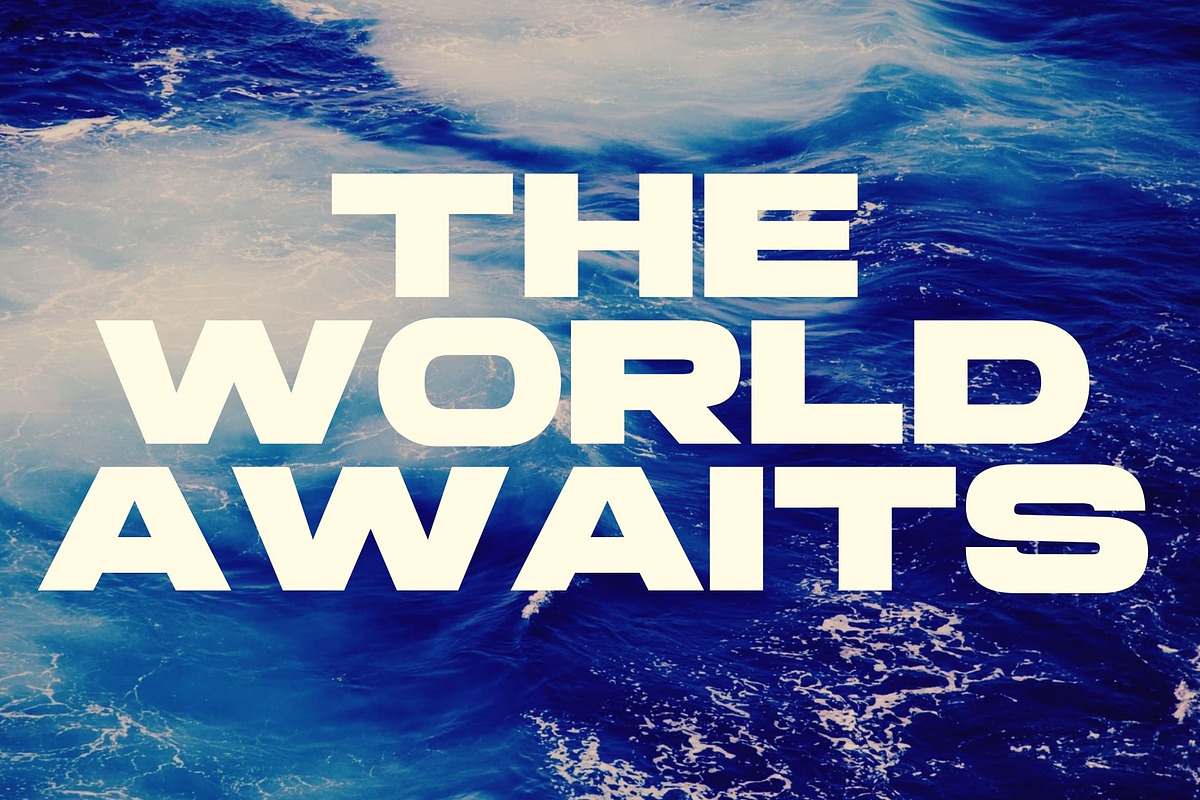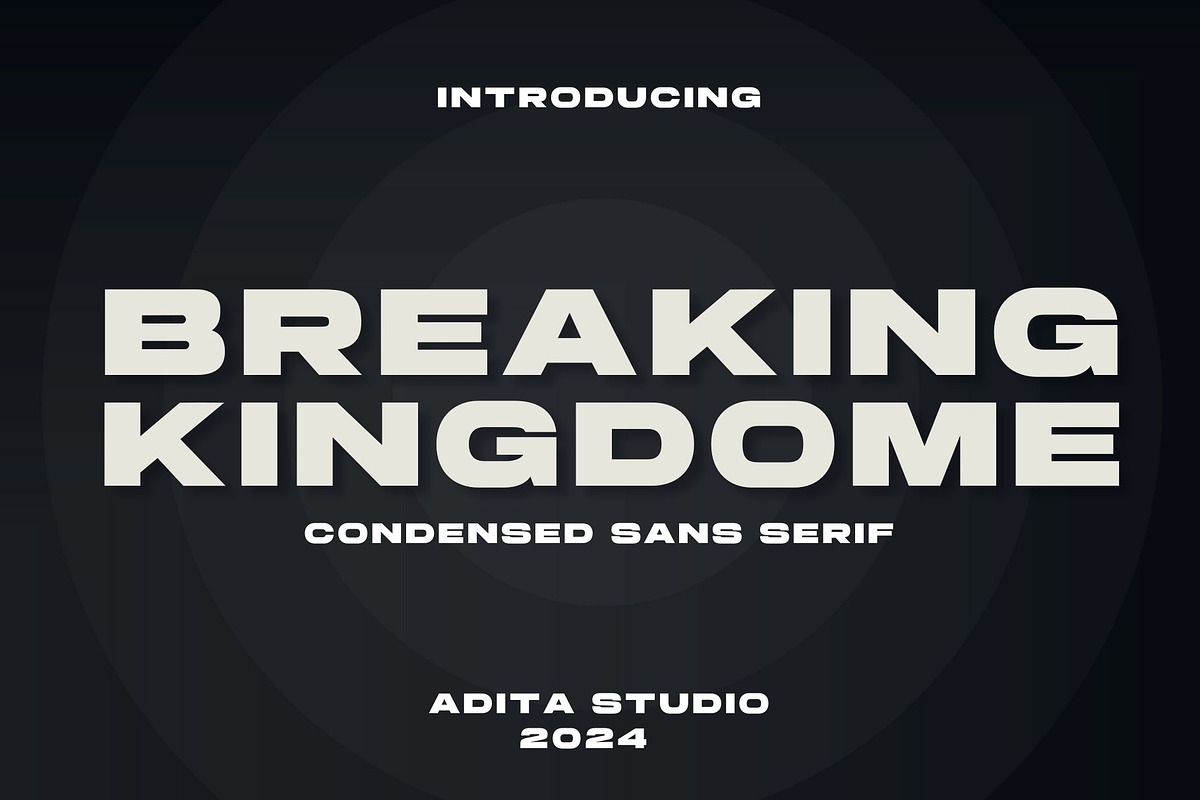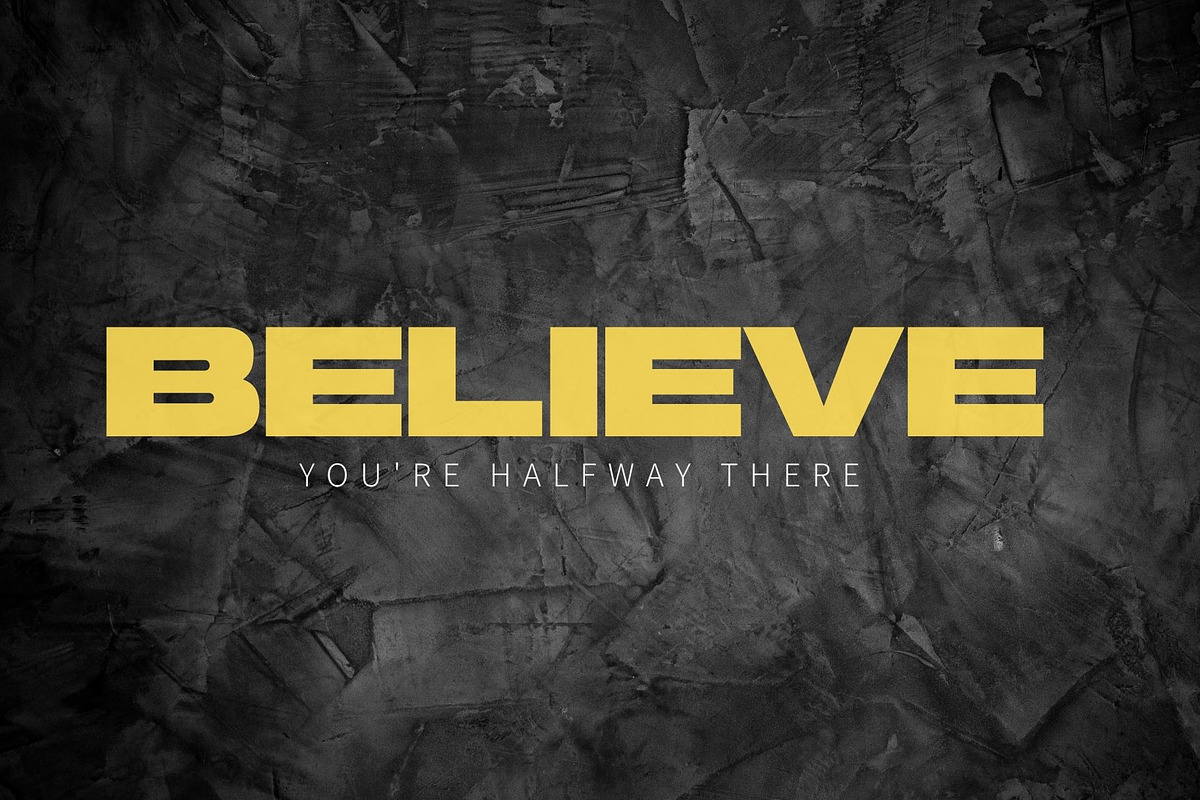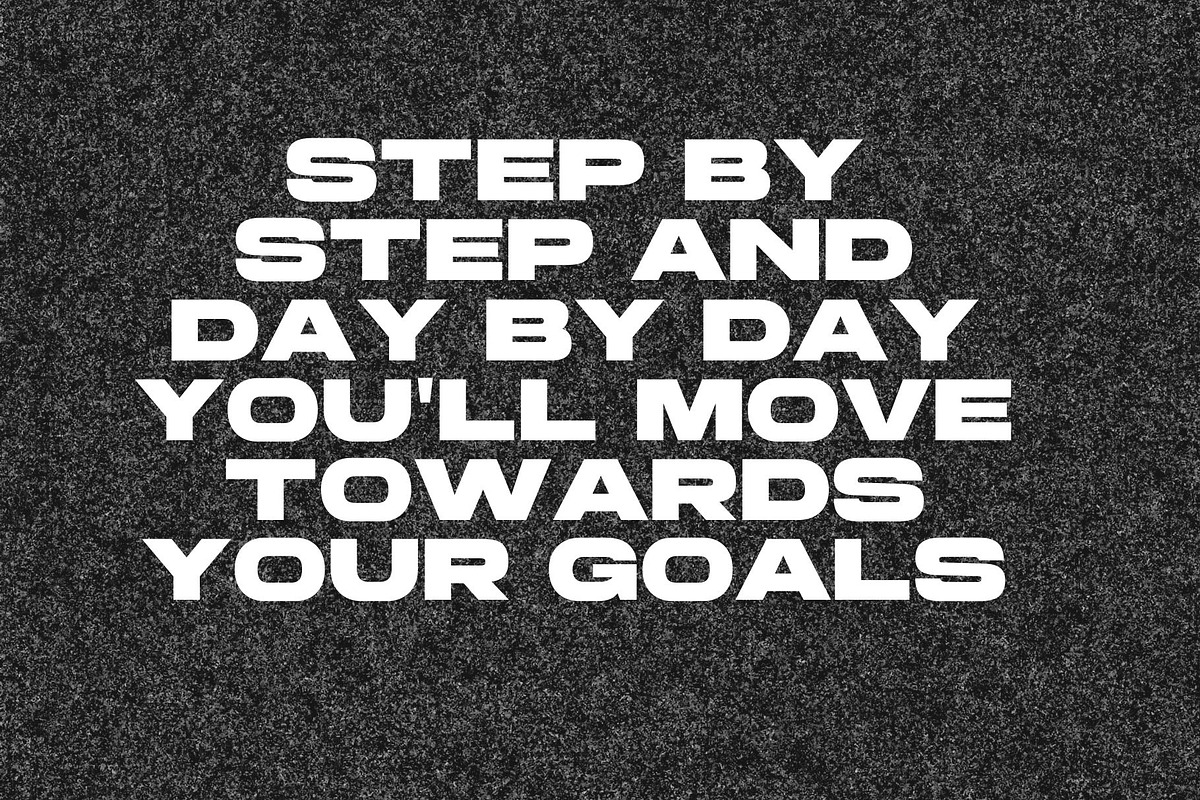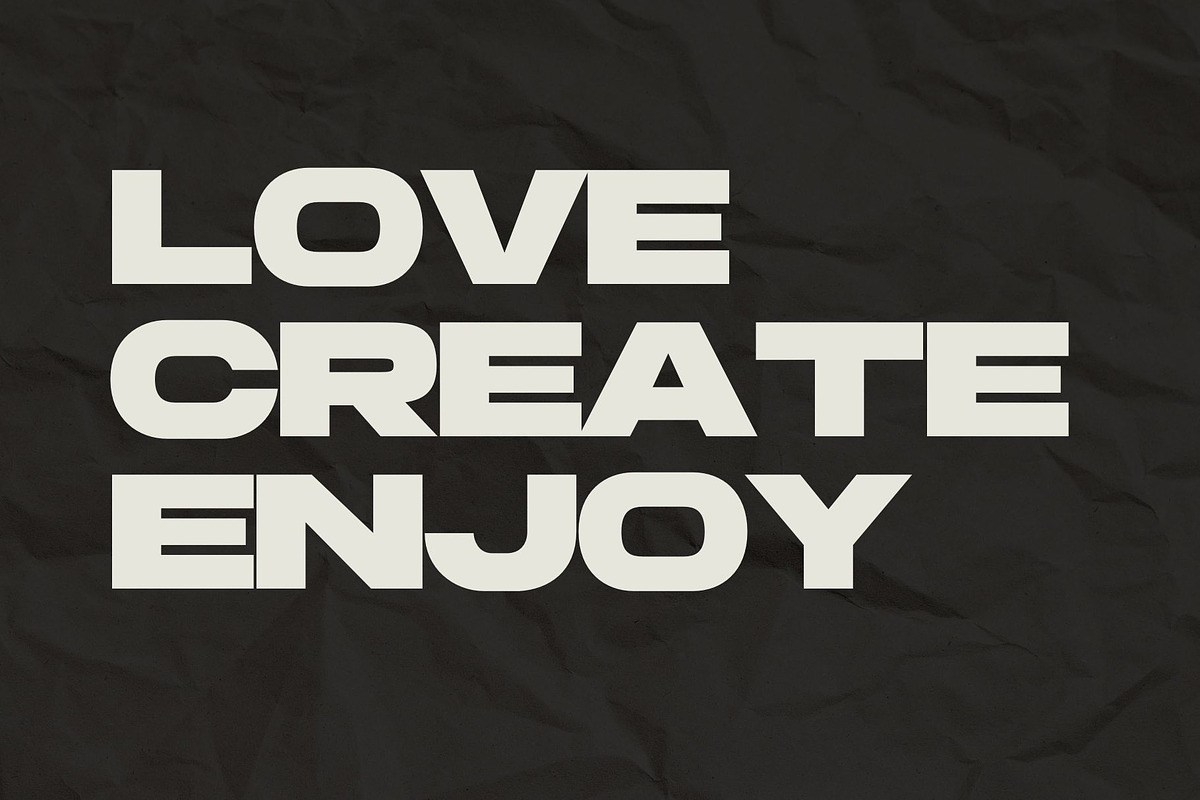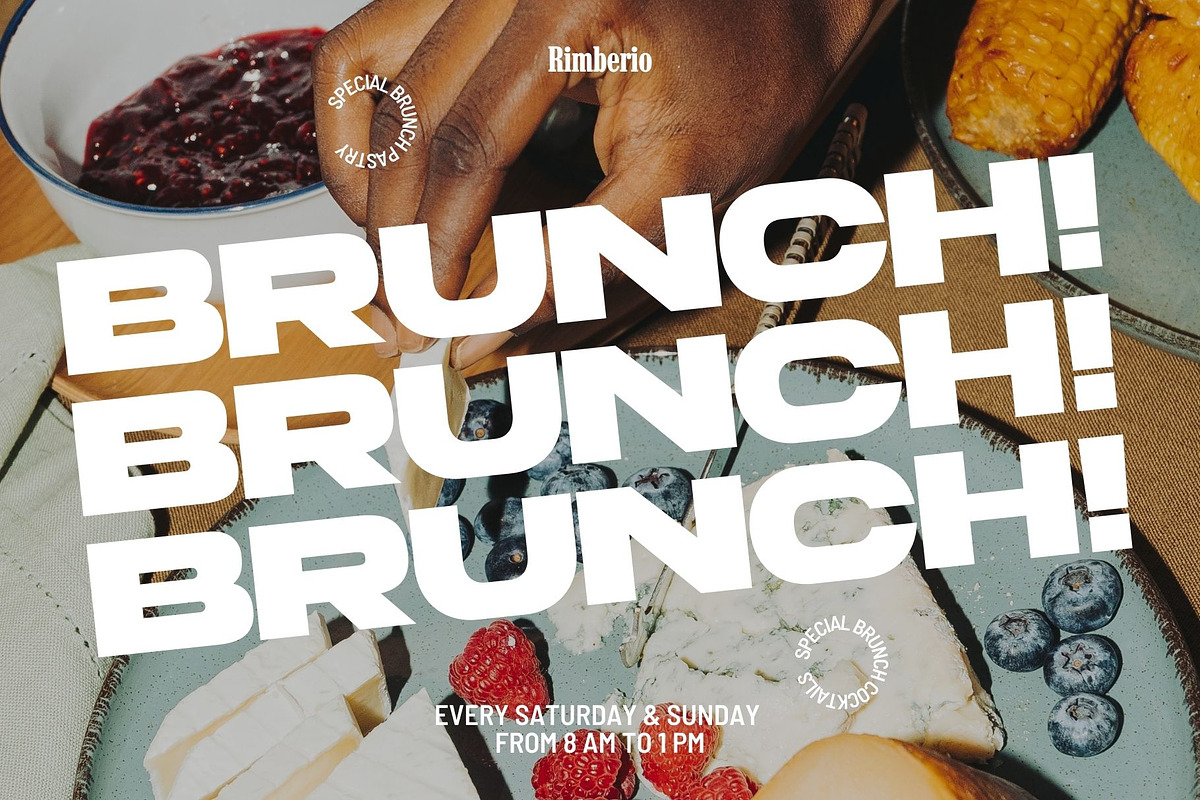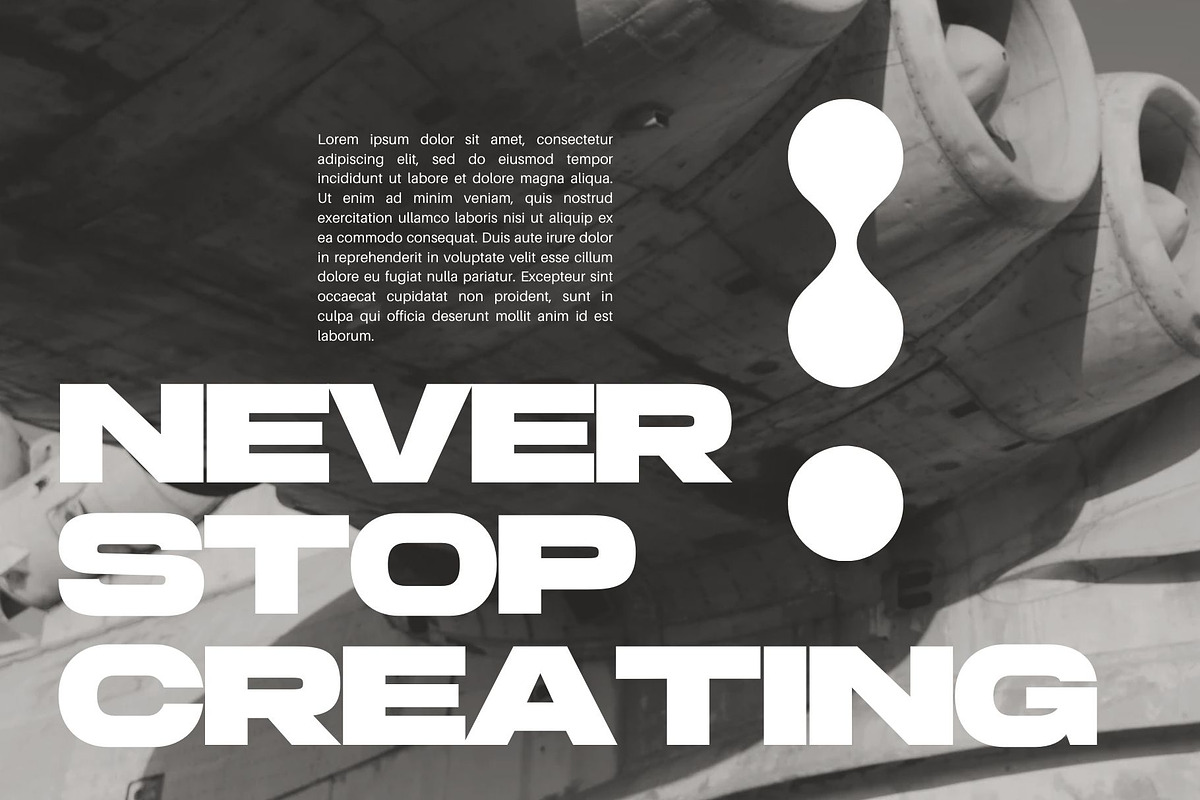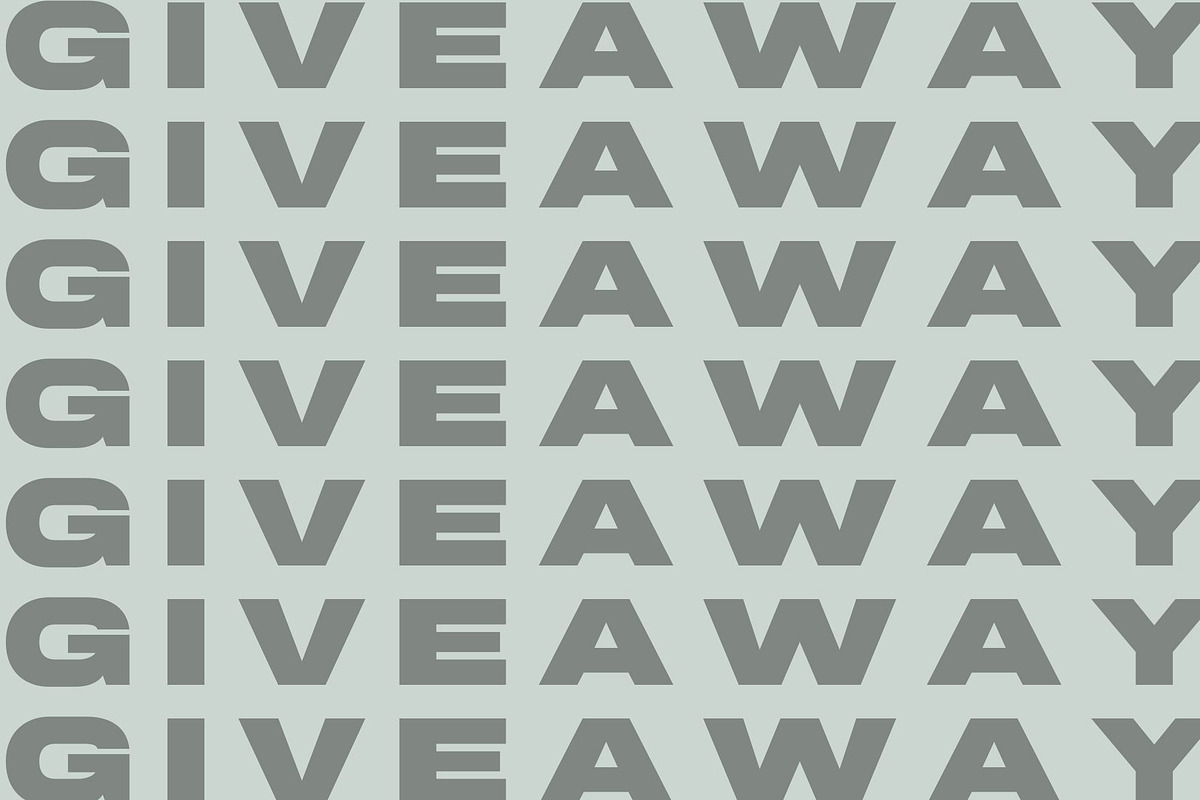
Breaking KingDome Condensed Sans
Introducing Breaking Kingdome Condensed Sans Serif is a modern and simple font, best used as a display for headings, logos, branding, magazines, product packaging and invitations. This come with clean lines and smooth curves give any project an extra touch of class.